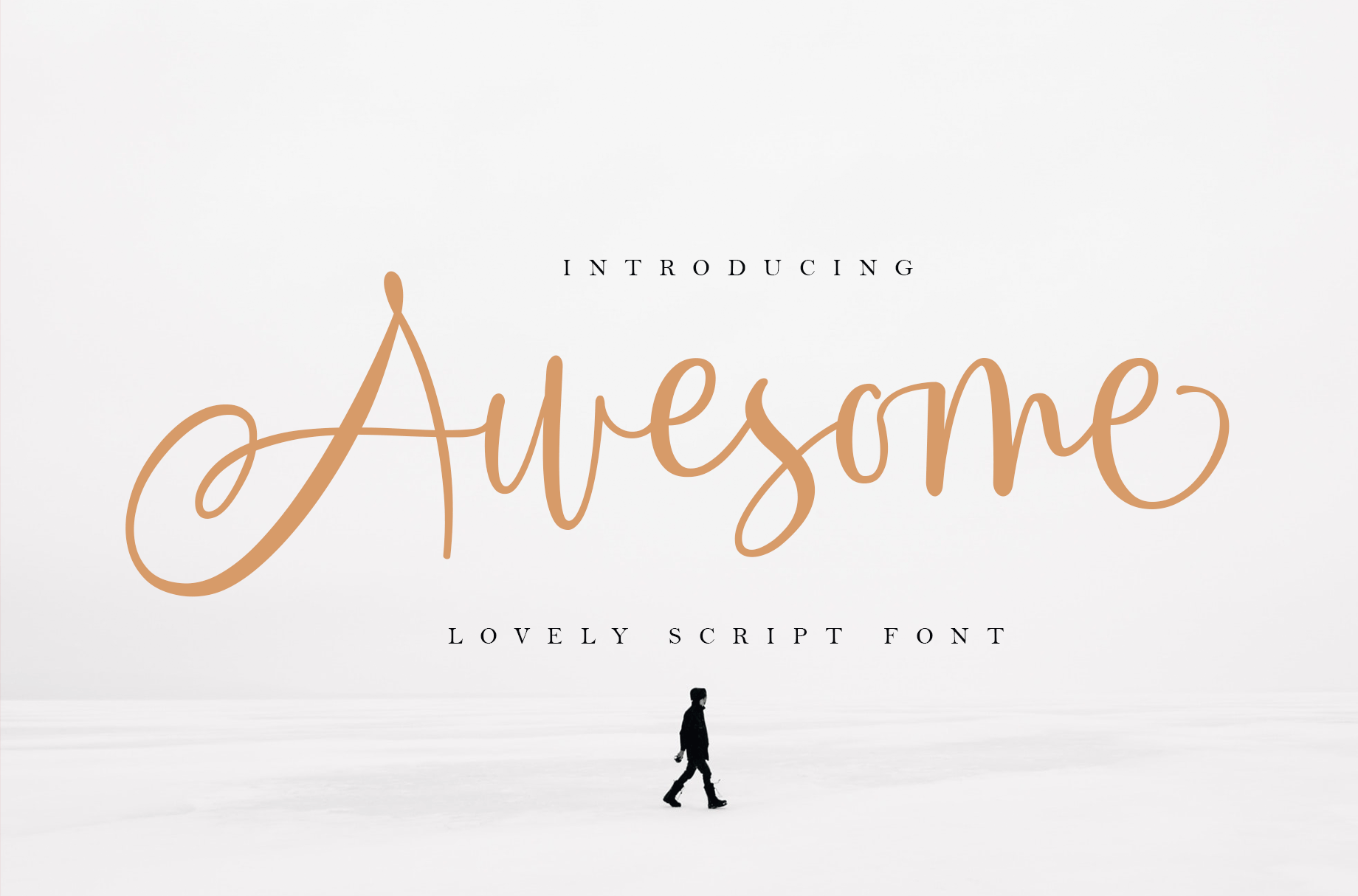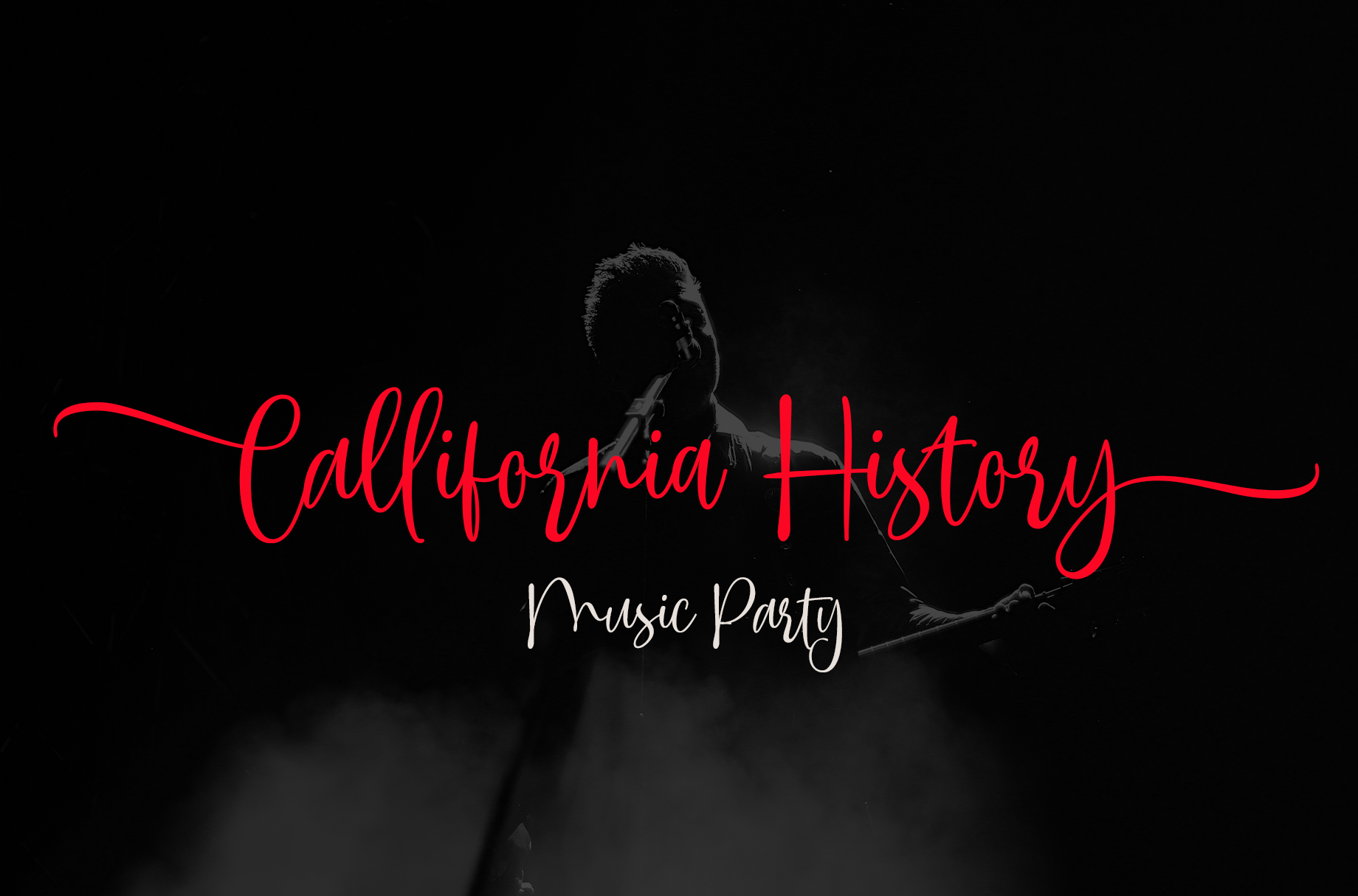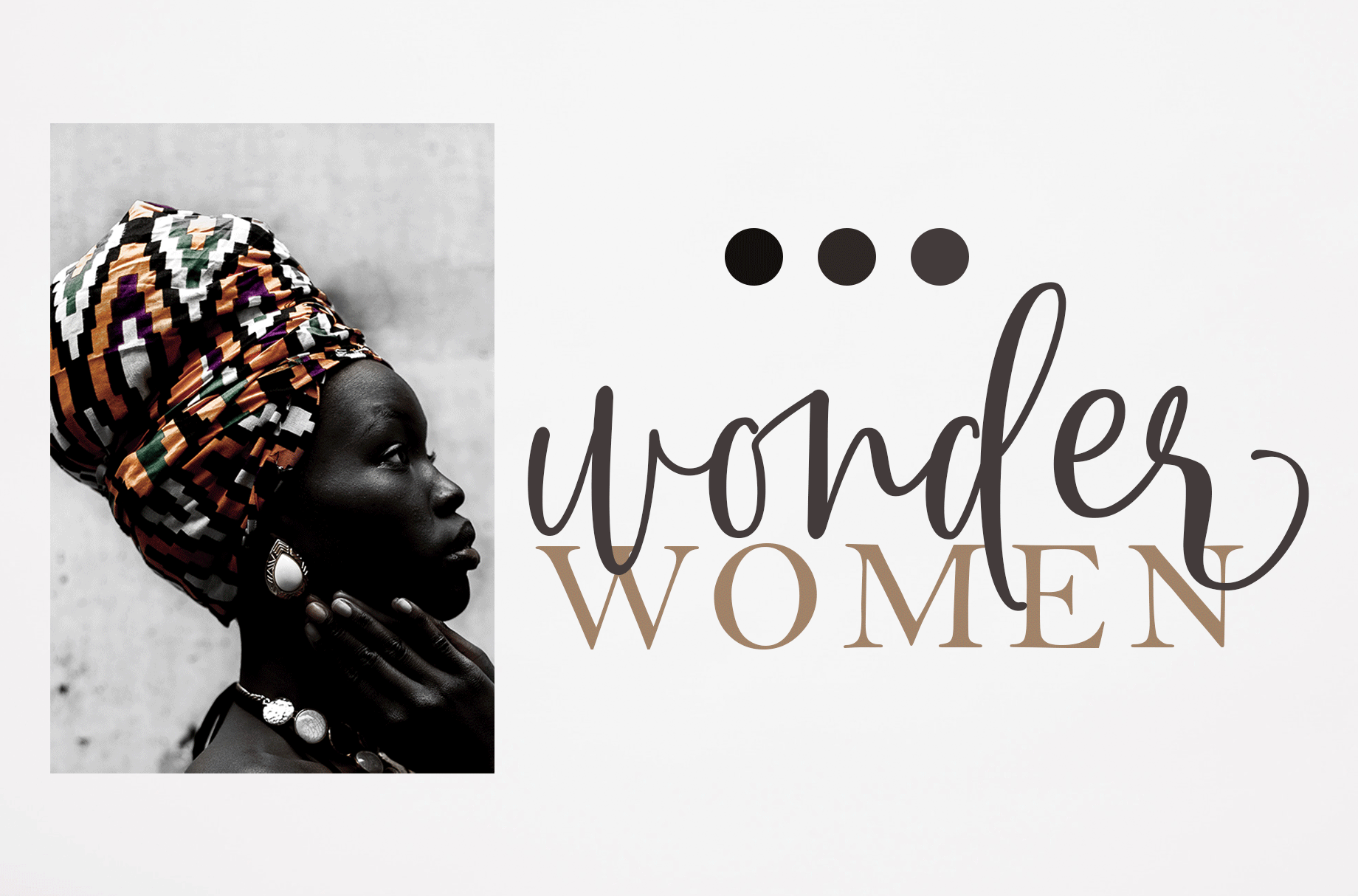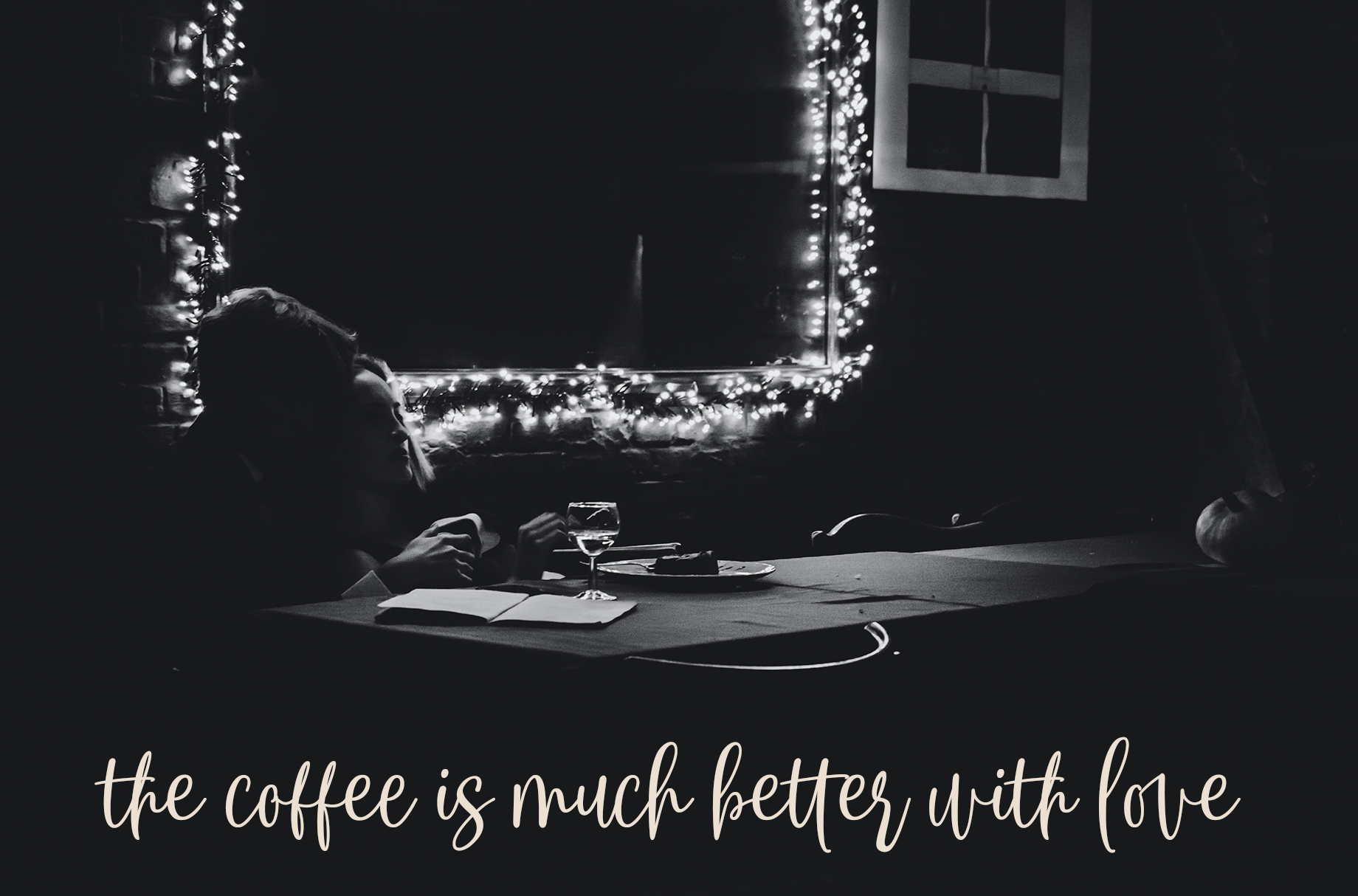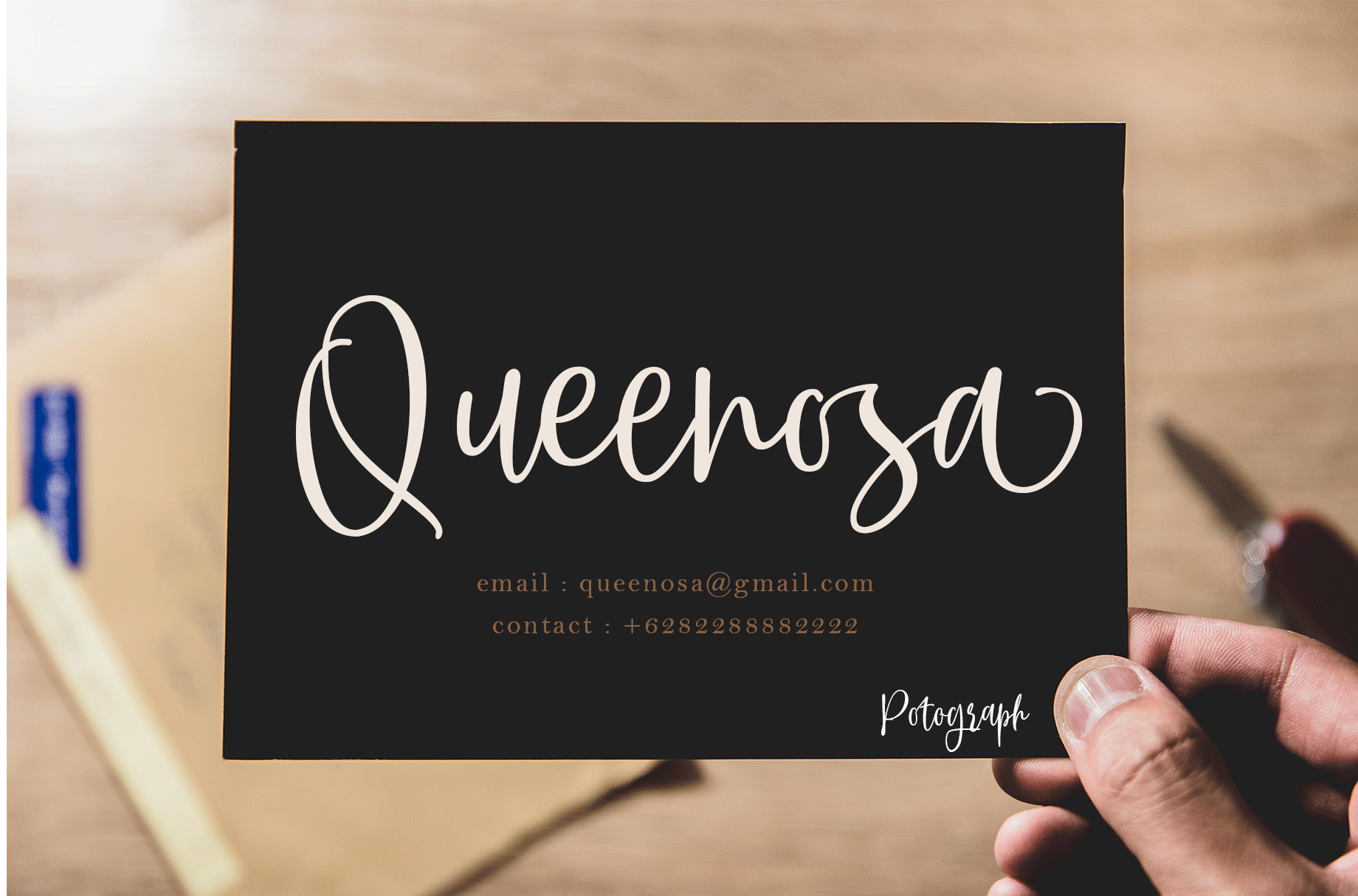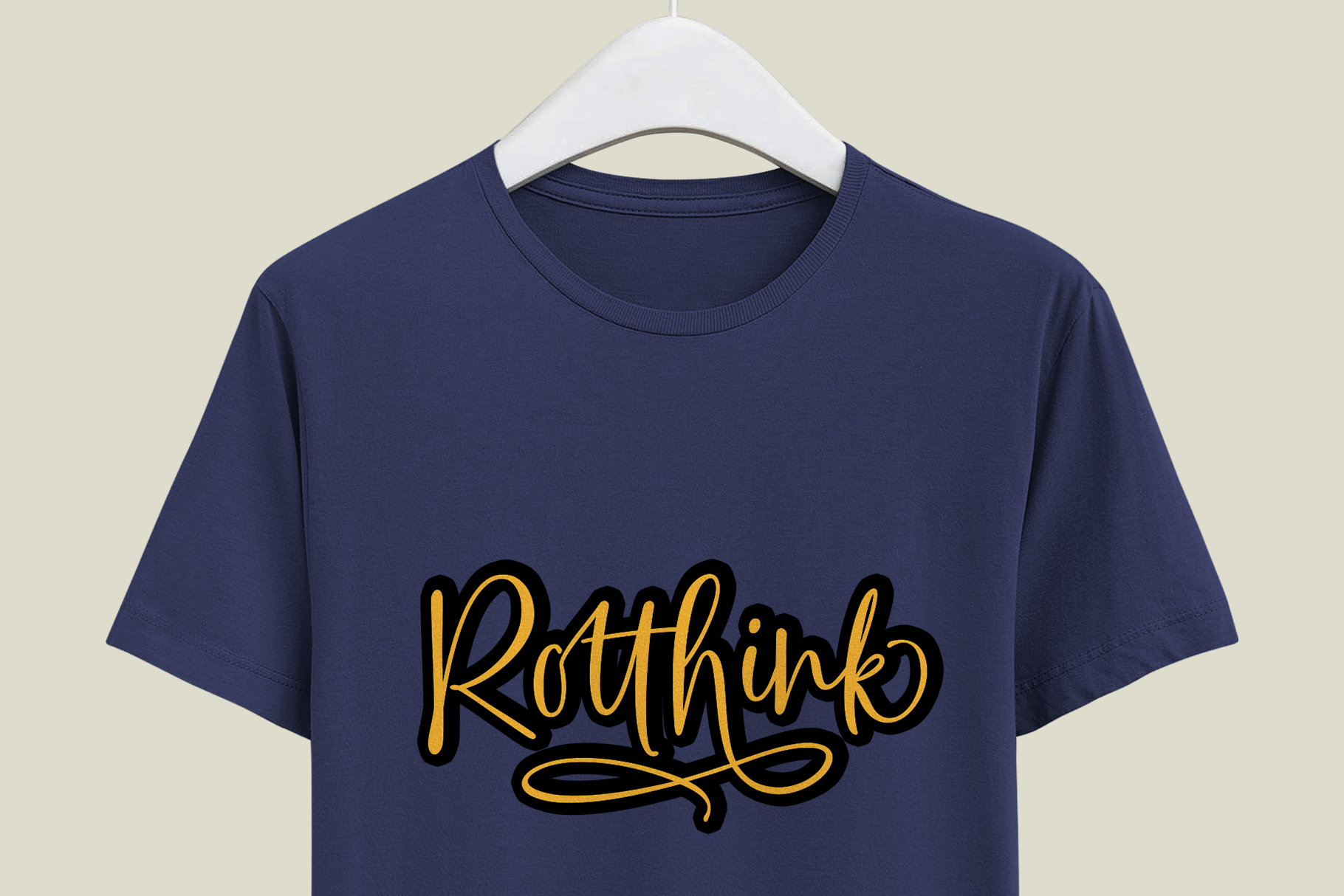
Awesome Script font duo
INTRODUCER Awesome Font Duo is handwritten font with a modern Calligraphy feel. Awesome Font Duo is perfect for modern projects, headings, blogs, logos, brandings, invitations and more! This purchase includes : (TTF,OTF&WEBFONT.) Programs that support in this font is a Microsoft Office Adobe Photo Shop, Adobe Illustrator, Adobe Indesign, and Corel Draw, badges etc. Thank You Font Lovers....!
Awesome Fonta Slant
Awesome Fonta